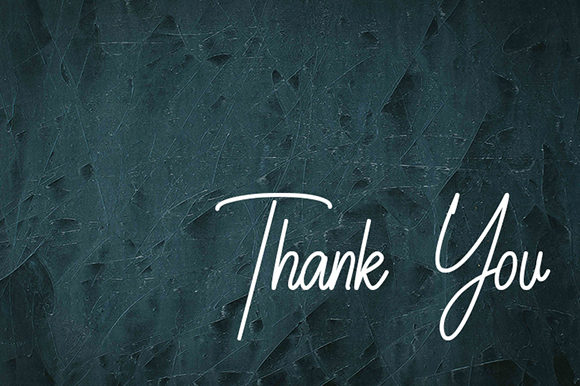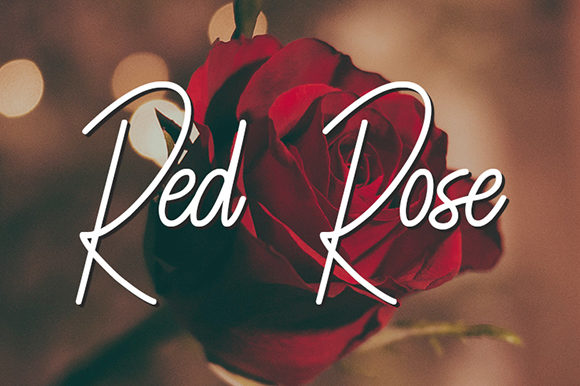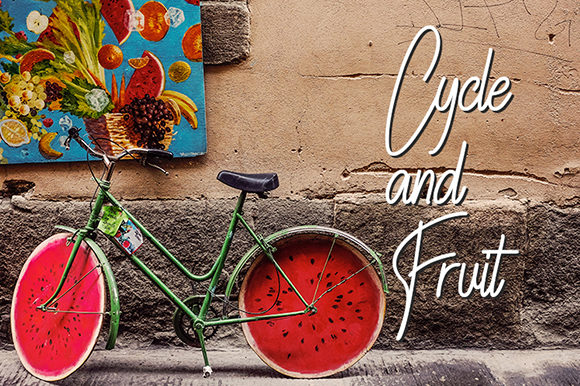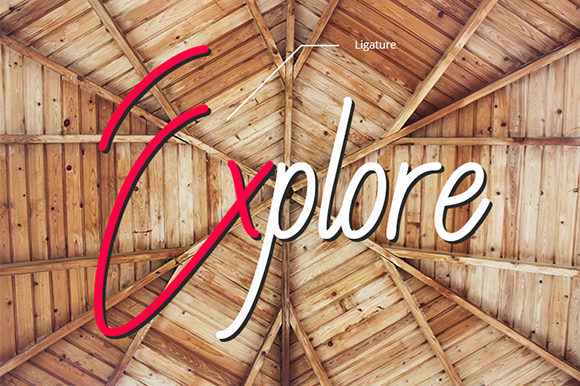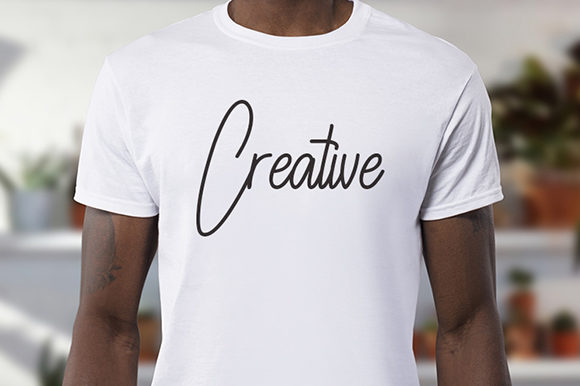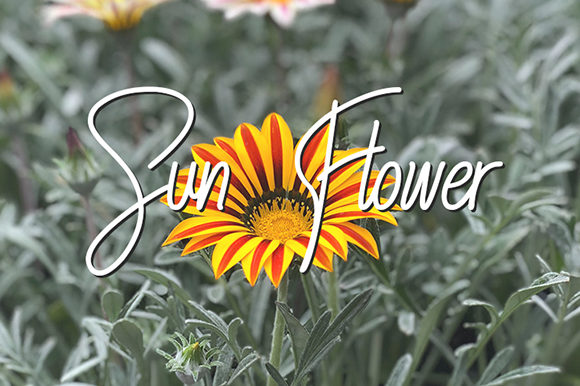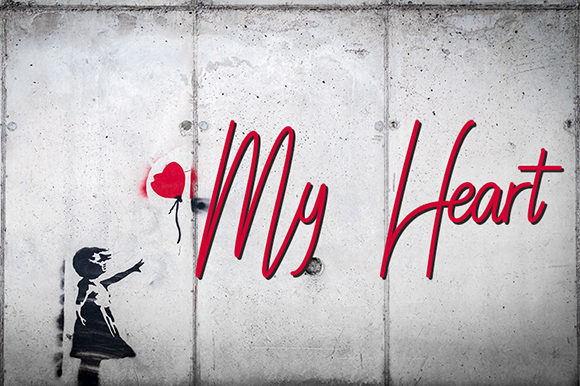
HomeScript FontsElliziebet Font Script Fonts Elliziebet Font FacebookXPinterestWhatsApp Elliziebet Font Poster 2 Elliziebet Font Poster 3 Elliziebet Font Poster 4 Elliziebet Font Poster 5 Elliziebet Font Poster 6 Elliziebet Font Poster 7 Elliziebet Font Poster 8 Elliziebet Font Poster 9 Elliziebet Font Poster 10 About Elliziebet Font Elliziebet is a strong and powerful script that will add an authentic feel to any design project. DOWNLOAD ON CREATIVE FABRICAThis font is sold and delivered by Creative Fabrica. Font Canyon may earn a commission if you buy through this link. People also explored Viridecent Font Filson Font Amellya Font Tuscan Gothic Miamo Font Arlington – Modern Script Font Magenta Font Quantum Melody Font Desire 422 0 TagsElliziebet Font Previous articlePraktys FontNext articleHandbranding Font LEAVE A REPLY Cancel reply Comment: Please enter your comment! Name:* Please enter your name here Email:* You have entered an incorrect email address! Please enter your email address here Website: Save my name, email, and website in this browser for the next time I comment. Personal Use Free Dream Orphans Personal Use Free Read more about this font Rhetorical Personal Use Free Read more about this font Foo Personal Use Free Read more about this font Lumber Personal Use Free Read more about this font BLOG Fonts That Capture the Spirit of New York City New York City is more than just a place—it’s an experience, a rhythm, a visual language... Best Fonts for T-Shirt Design – Top 2025 Picks Free Fonts Risk: Why Free Fonts Can Be Dangerous for Designers Top 10 Handwritten Fonts That Elevate Your Designs